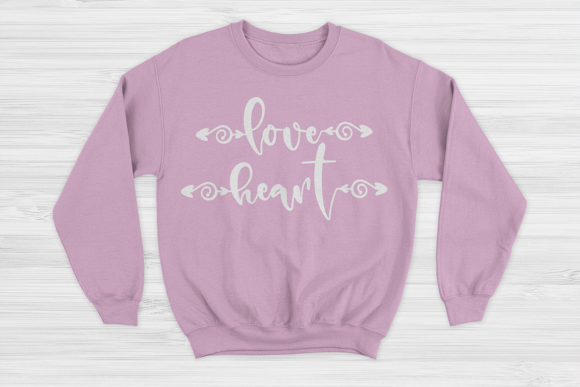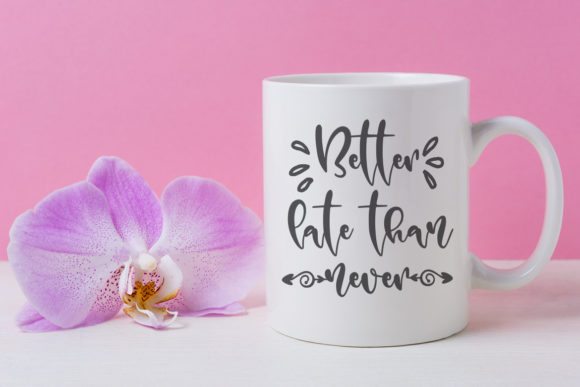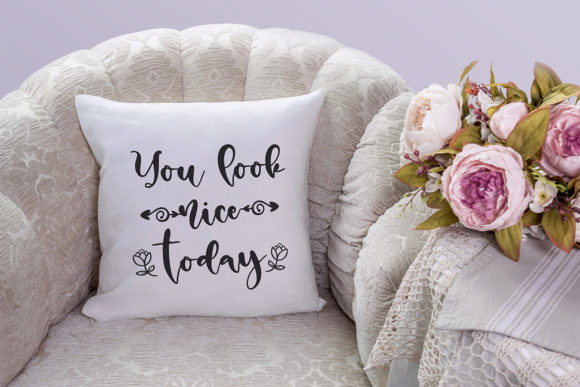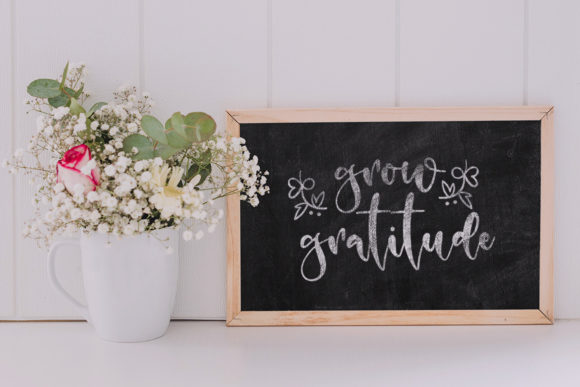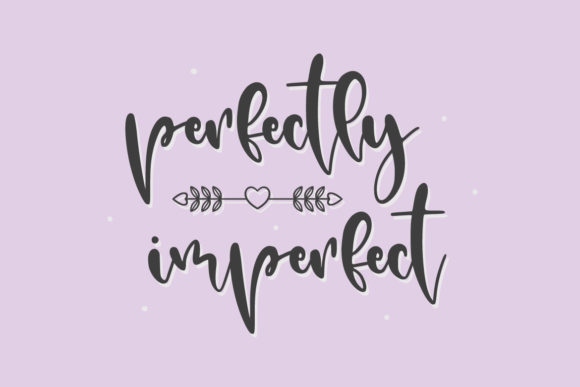
Introduction to Line Arrow Font
Line Arrow is an exquisite handwritten font, masterfully designed to become a top choice.
This font is PUA encoded which means you can access all of the glyphs and swashes with ease .
Key Features of Line Arrow Font